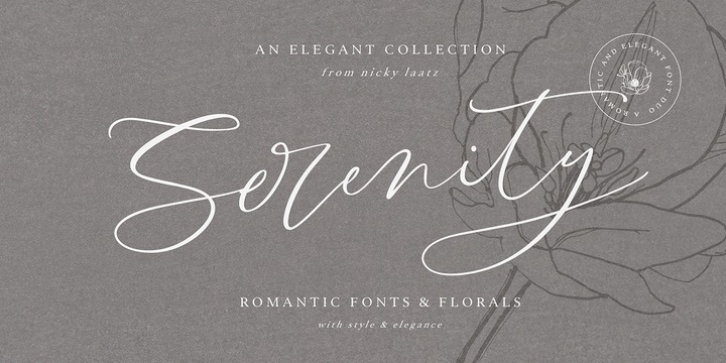
An elegant duo of fonts and floral illustration extras - designed to work together in harmony, to produce a plethora of beautiful, sophisticated & feminine designs. The luxurious modern calligraphy script works perfectly together with the delicate hand-drawn florals - ideal for elegant branding projects, greeting cards, packaging, social media, logo design and of course, wedding invitations. Also included is Serenity Serif, a rustic serif font, with a touch of imperfection as you'd find in old printed press inks - to contrast with and therefore compliment the more refined luxurious contemporary flow of the script font .
Serenity Script includes handy OpenType features that makes the font look more natural - it includes a universal beginning swash for lowercase letters , a full set of lowercase letters with ending swashes, a beginning swash that can be added via OpenType Ligatures by typing either { } or ( ), and a full set of alternate lowercase letters , as well as 70 beautifully crafted ligatures . A more slanted, and heavier version of the script is also included for you. OpenType capable software is required to access these features - The most popular of which is and Photoshop CC, any version of Illustrator, Indesign, Word (new versions).  The Serif font comes in 4 versions: Regular, Bold, Heavy and Italic - when used together with different tracking settings and weights, they produce beautiful looking type designs to compliment the Script.